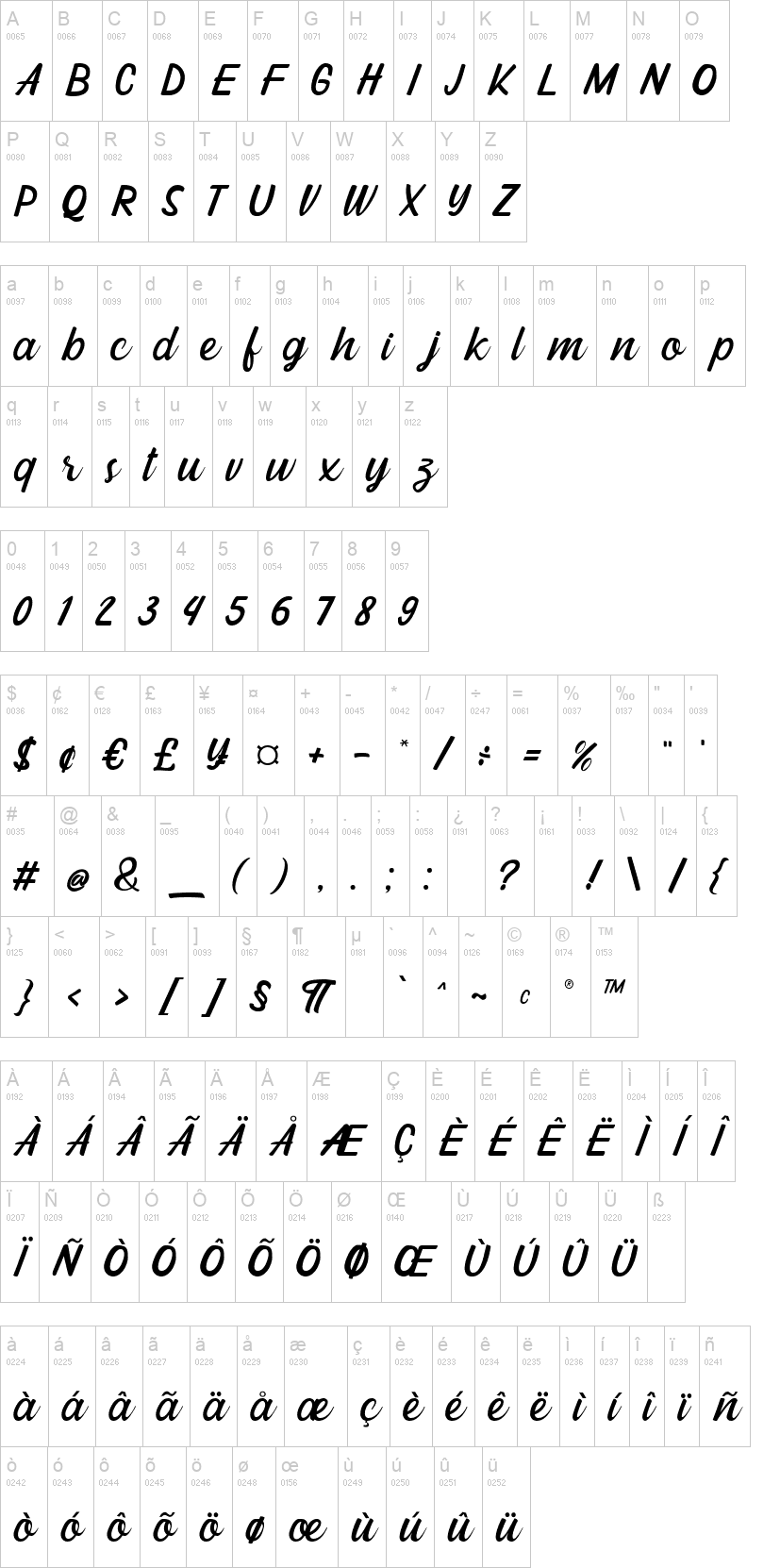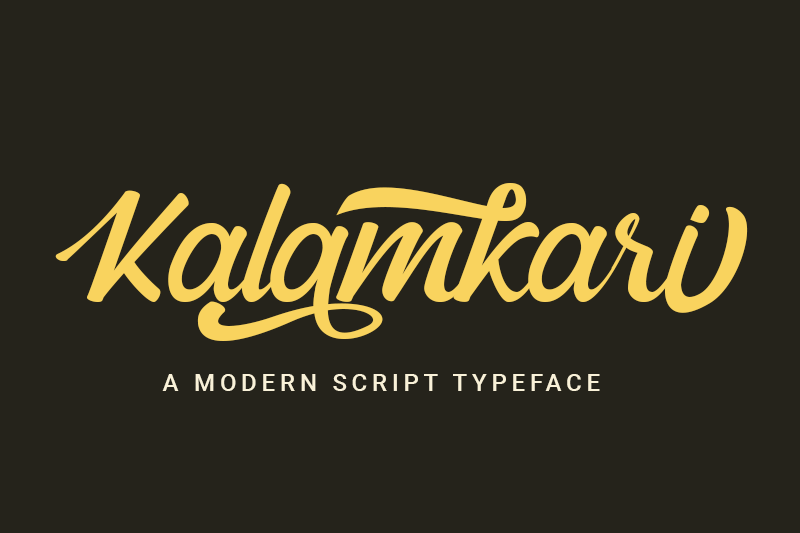
Note of the authorKalamkari is a beautiful, well balanced and vintage styled script font. It is defined by smooth curves and is perfect for fashion branding or editorial designs. Add it confidently to your projects, and you will love the results.